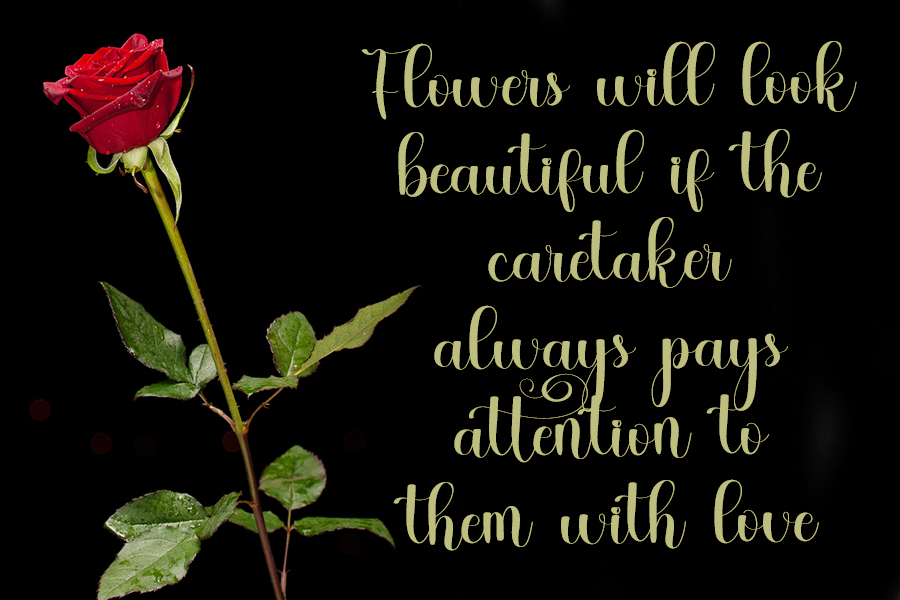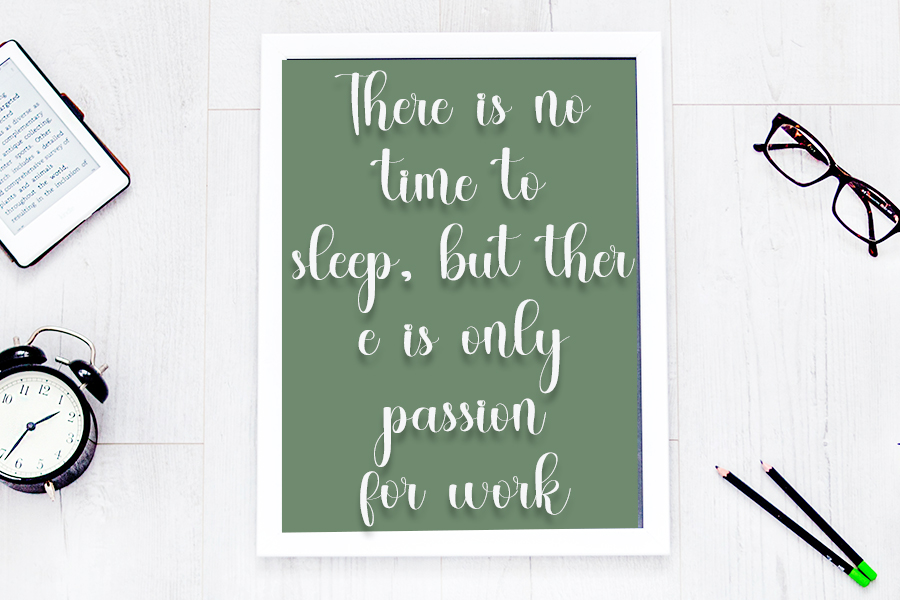
Master Pretties Script Font
This is a relaxed and beautiful paint brush handwritten font. It can be used for various purposes such as logos, wedding invitations, headings, t-shirts, letterhead, signage, labels, news, posters, badges and so much more.